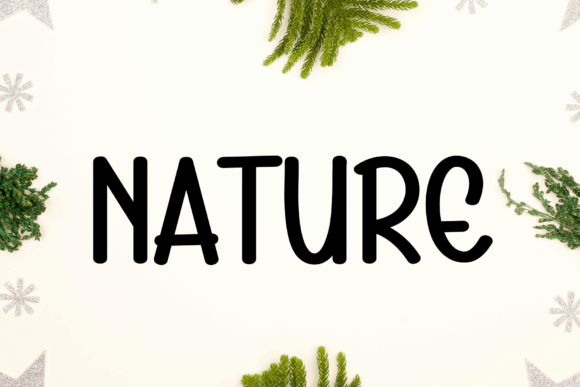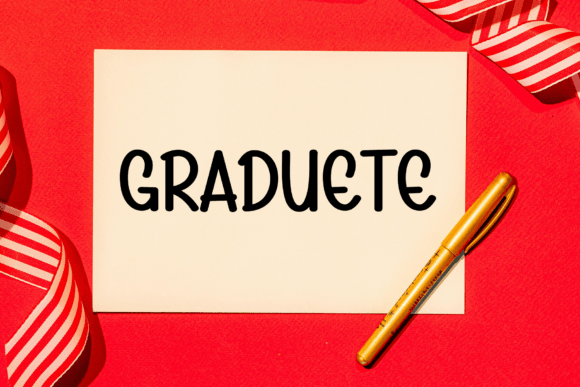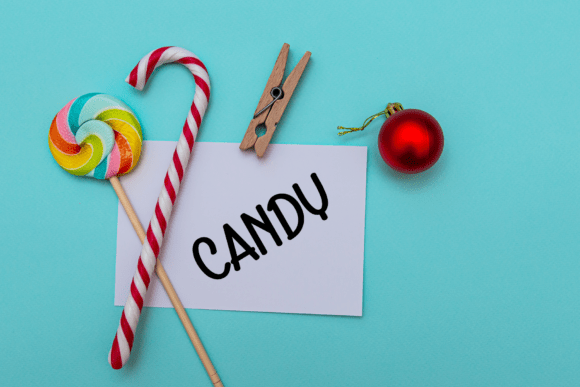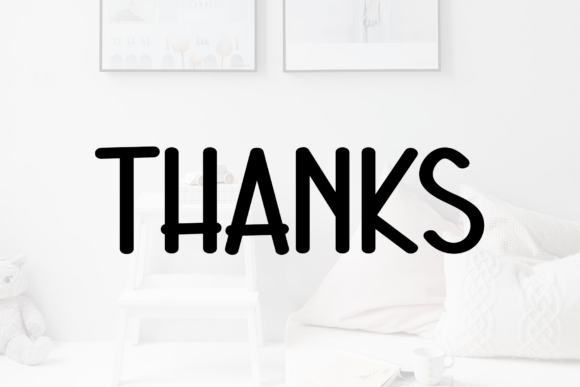
Introduction to Monday Bold Font
As a designer, have you ever been stuck on a creative project, searching for that perfect font to bring your vision to life? I know I have. There’s something magical about finding a font that captures the essence of your design, and for me, that font is Monday Bold.
Monday Bold is a sweet and beautiful handwritten font that features characters that dance along the baseline, adding a cozy accent to any design project. Its unique style makes it a valuable resource for designers looking to add a touch of personality to their work. Whether you’re working on a high-quality brochure or a free download for a client, Monday Bold Font is sure to elevate your design to the next level.
With its transparent background and high-quality design, Monday Bold Font is the perfect addition to any designer’s toolkit. In this article, we’ll explore the features and benefits of this amazing font, and show you why it’s a must-have for any creative project.
Key Features of Monday Bold Font
- High-quality design resource for creative projects, ideal for use in graphic design, digital art, and typography.
- Monday Bold Font comes in a transparent background option, allowing for easy layering and customization.
- Designed with a bold and modern aesthetic, Monday Bold Font is perfect for headings, titles, and creative typography.
- Available in a single weight, making it easy to use and customize for various design projects.
Honest Review: Monday Bold Font
I recently stumbled upon the Monday Bold Font and I must say it’s been a game-changer for my creative projects. The high quality design and clean lines make it a great addition to any design resource.
What works well: ✨ The font is incredibly versatile and can be used for a wide range of creative projects, from web design to print materials. The free download option is also a major plus, making it easily accessible to designers on a budget. The transparent background feature is also a nice touch, allowing for seamless integration with other design elements.
- ✨ Highly versatile and suitable for various creative projects
- ✨ Transparent background feature for seamless integration
However, there are a few limitations: ⚠️ The font may not be suitable for all design styles, and some users may find the bold aesthetic too overpowering. Additionally, the font may not be as customizable as some other design resources.
Overall, I’m impressed with the Monday Bold Font and would definitely recommend it to designers looking for a high-quality, versatile font for their creative projects.
Transparent Background
Monday Bold Font supports transparent backgrounds, making it perfect for designs that require a seamless integration with other elements.
Use Monday Bold Font in combination with other high-quality design resources for maximum impact. Experiment with different font sizes, colors, and layouts to achieve your desired design.
Monday Bold Font is ideal for:
- Social media posts and ads
- Graphic design and branding